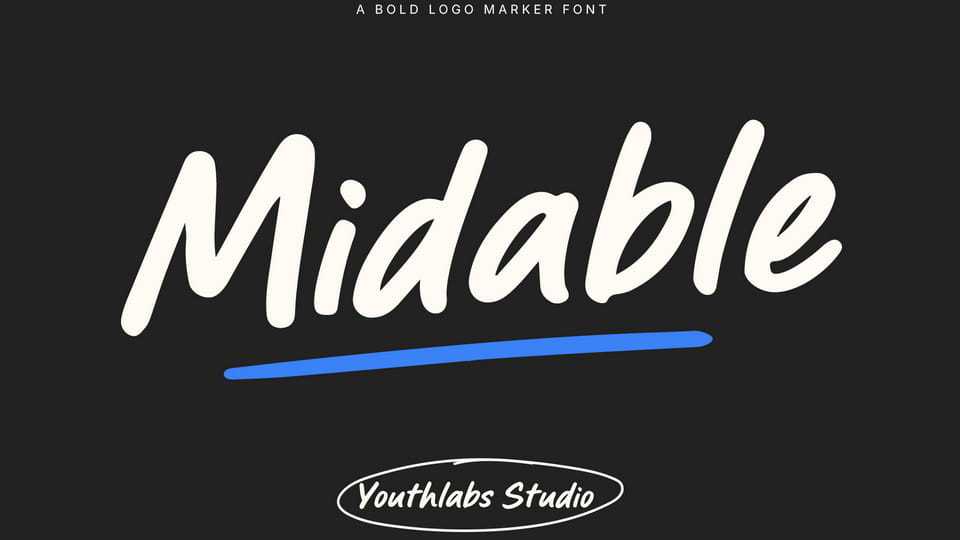
Download Midable font, a high-octane marker typeface designed to dominate the visual landscape. Created with raw energy, this typeface brings an unapologetic boldness to every character.